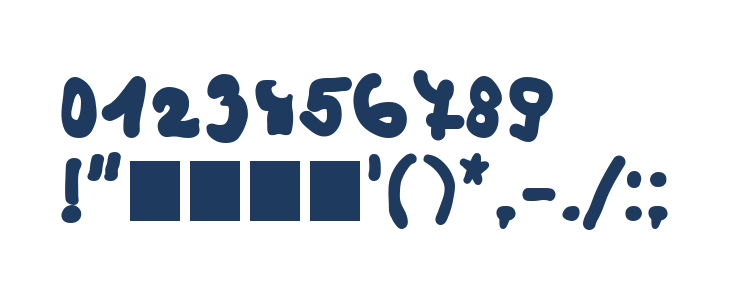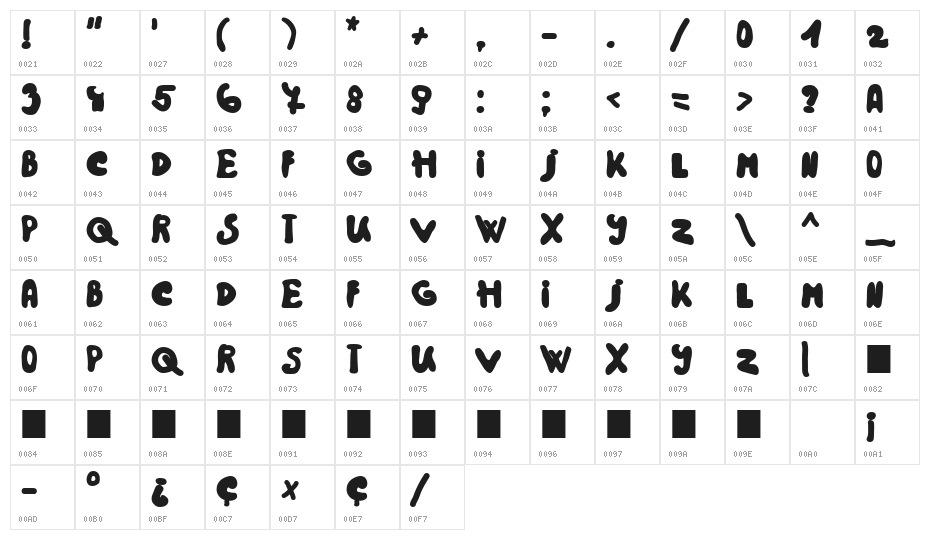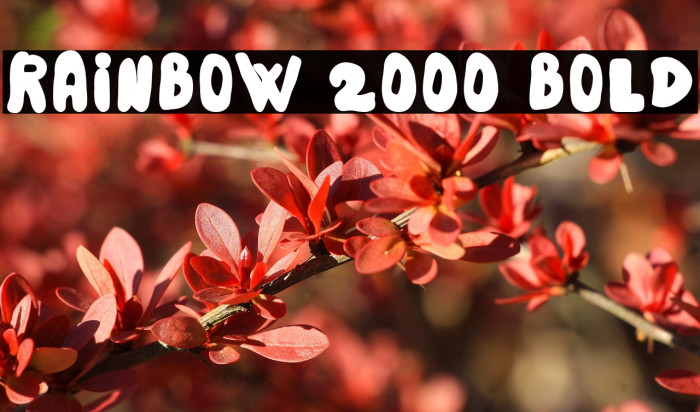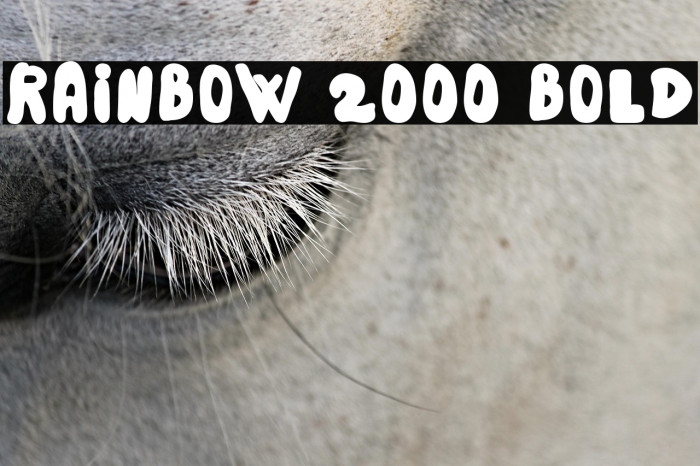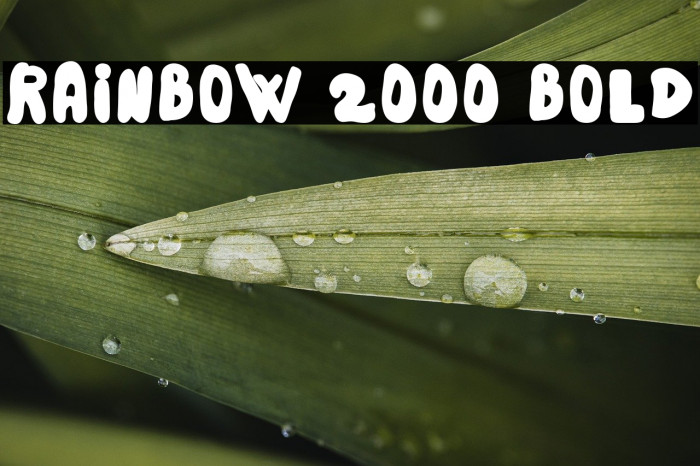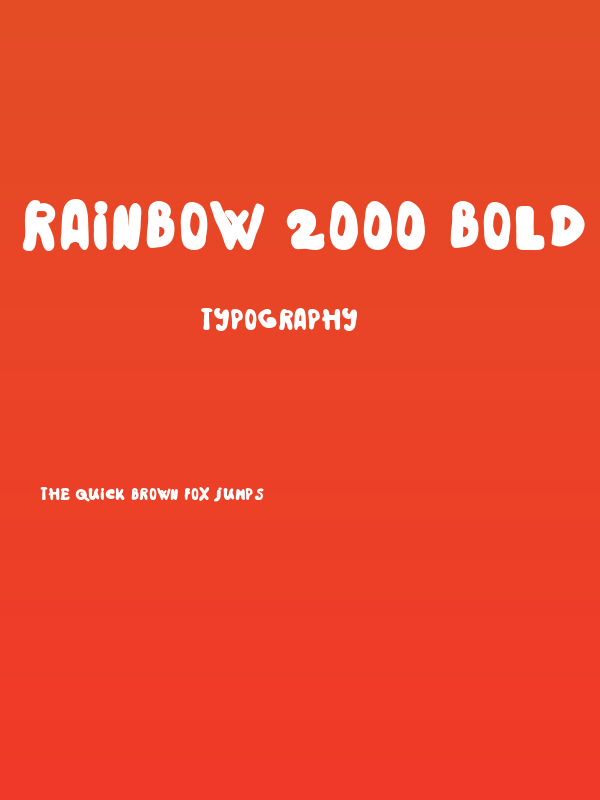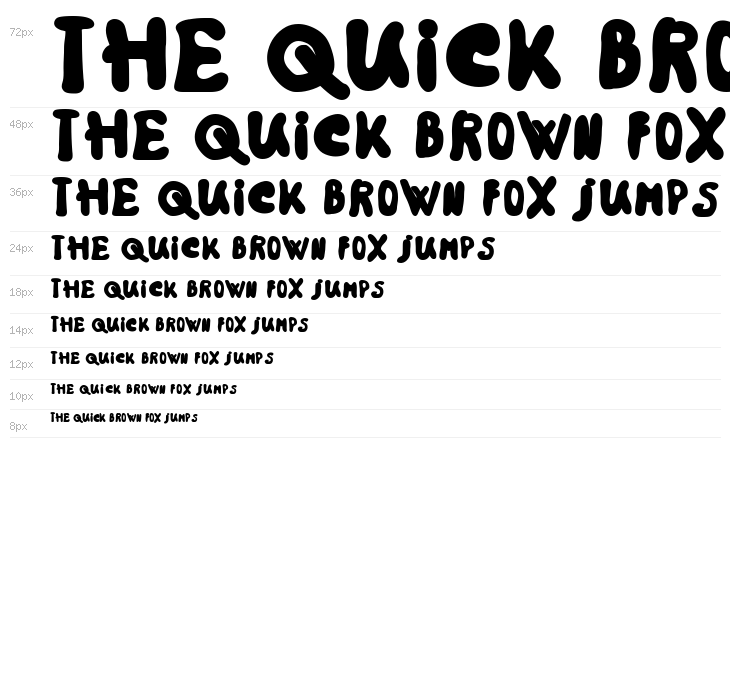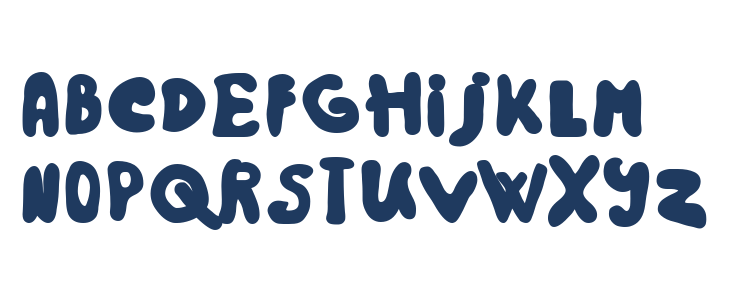
Rainbow 2000 Bold Font
Rainbow 2000 Bold Description
This font features a bold, playful style with rounded edges and a bubbly appearance. The characters are thick and have a consistent weight throughout, giving them a strong presence. The design is reminiscent of retro or vintage styles, with a touch of whimsy that makes it suitable for fun and informal projects. The uppercase and lowercase letters maintain a uniform look, while the numerals and special characters are crafted to match the overall aesthetic. The font's boldness and unique character shapes make it stand out, ideal for grabbing attention.
| Overall Style | Retro, Playful |
| Proposed Projects | Ideal for children's books, playful branding, party invitations, and retro-themed designs. |